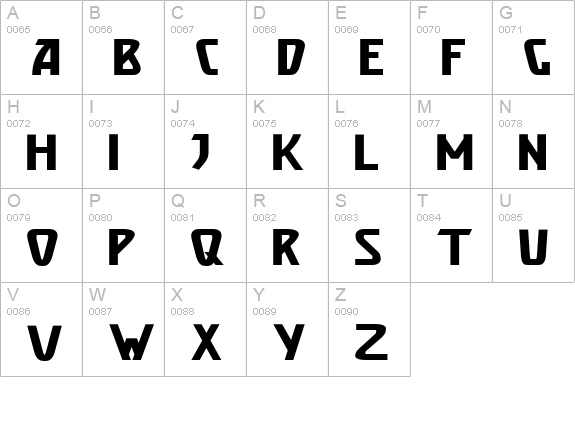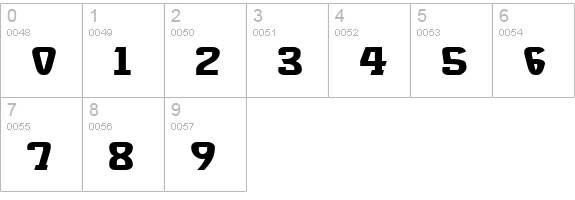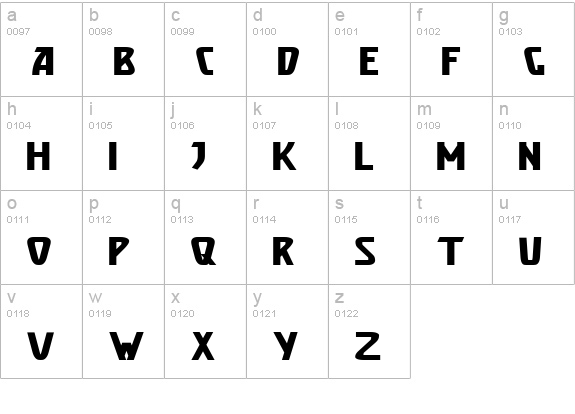
Brassett_Bold Font Details
Brassett_Bold font is a striking and versatile typeface that combines a bold aesthetic with a touch of elegance. Its strong, clean lines make it perfect for creating impactful designs that demand attention. Whether you're working on a logo, poster, or branding project, Brassett_Bold will add a touch of sophistication to your work. The best part? Brassett_Bold is available for free download at FontsMarket.com. This means you can easily access this stylish font and incorporate it into your designs without breaking the bank. Don't miss out on this fantastic opportunity to enhance your creative projects with the timeless appeal of Brassett_Bold font. Download it today and elevate your designs to new heights!